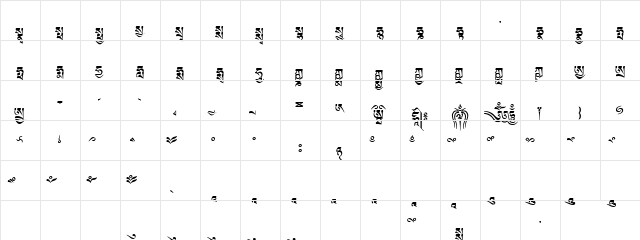
TibetanMachineWeb7 Regular
| Designer | Tony Duff |
Design Context for TibetanMachineWeb7 Typeface
TibetanMachineWeb7 offers clean, dependable letterforms without strong stylistic allegiance, making it a practical choice for designers who need flexibility.